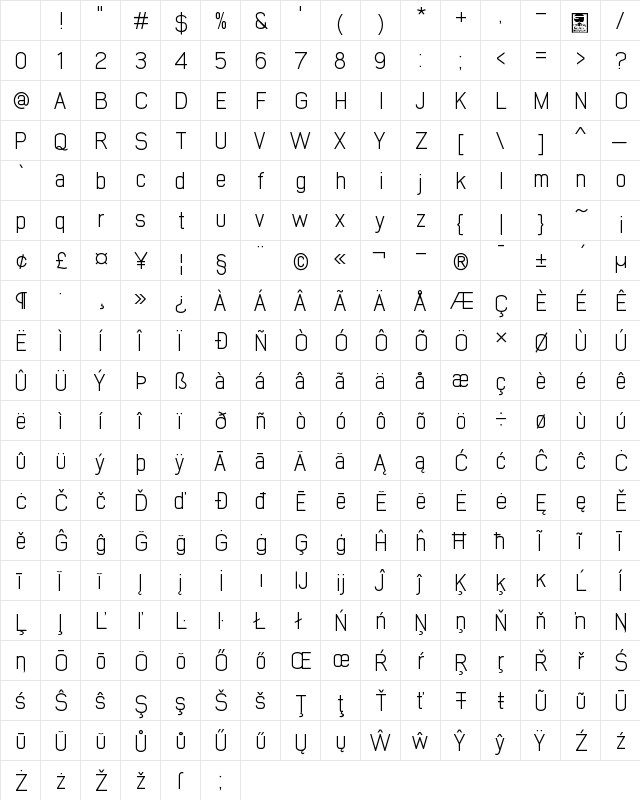
Complete Early Times Light Demo Regular glyph index. Displaying only characters natively supported by Early Times Light Demo Regular font.
Early Times Light Demo is a composed and adaptable typeface that performs quietly and consistently across a wide range of design contexts. Its slender proportions lend an understated elegance to any composition.